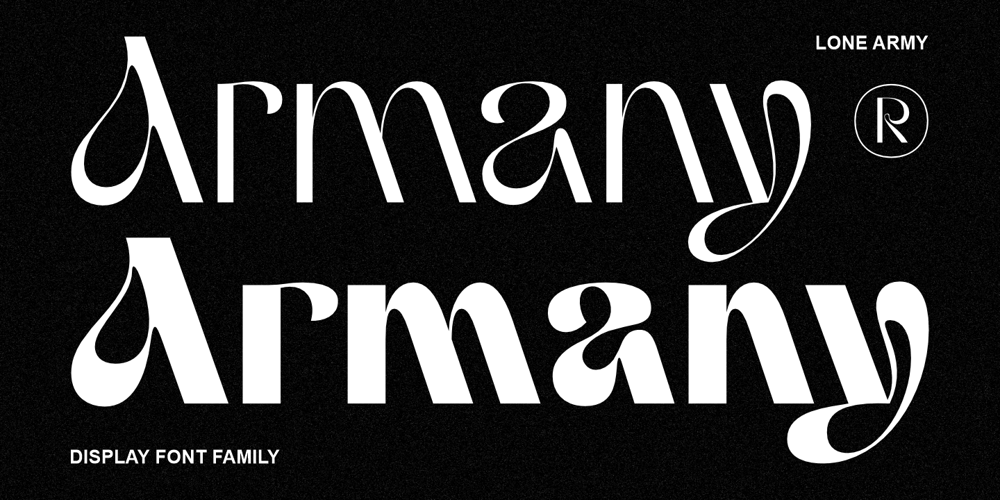
Armany Font Family
Armany Font Family was designed by Alfin Weniardi and published by Lone Army. Armany Font Family contains 4 styles and family package options. Sophisticated modern, our fluid Modern Sans Serif font family enhances your designs. Elevate with captivating headlines and branding. Experience elegance.